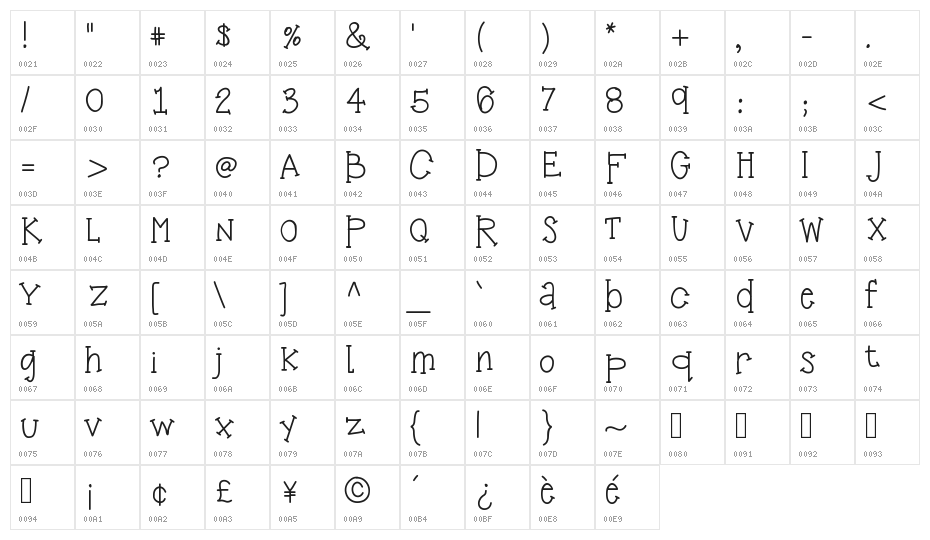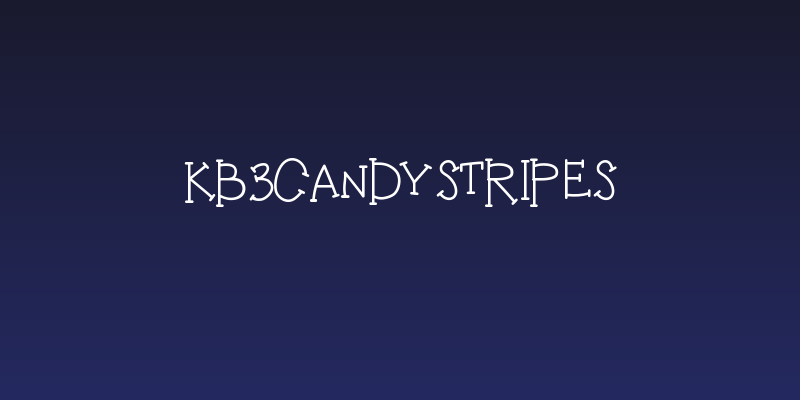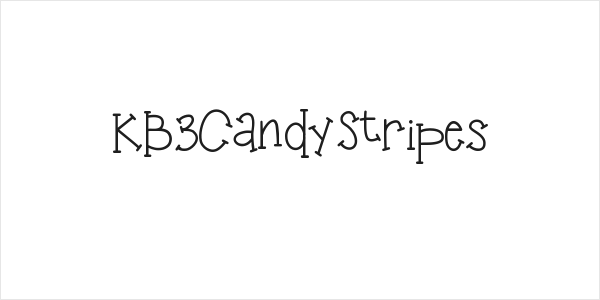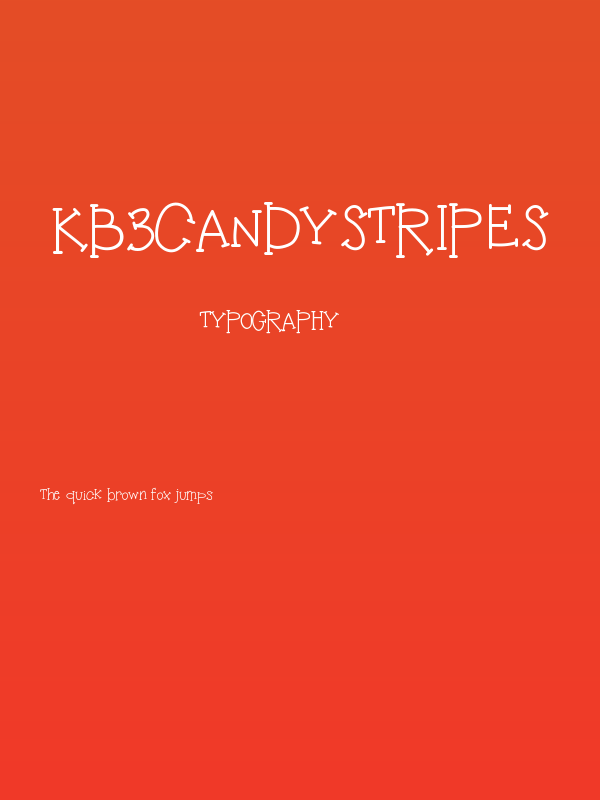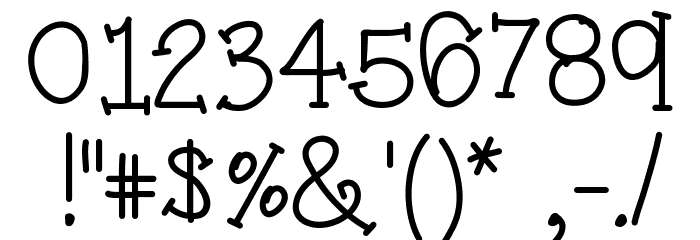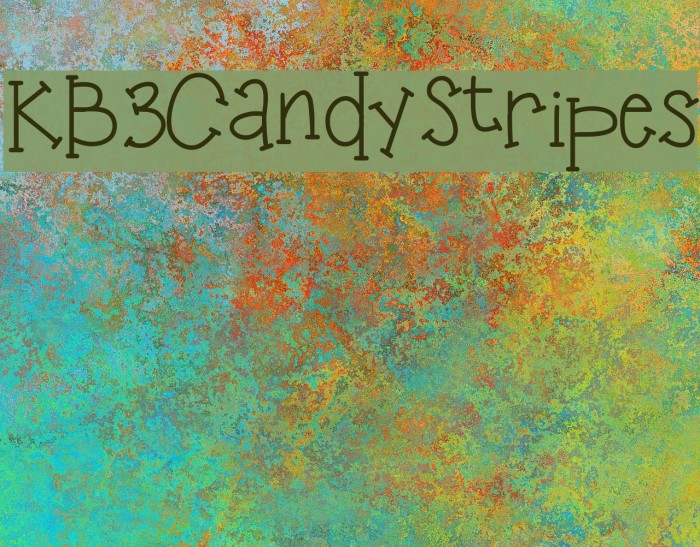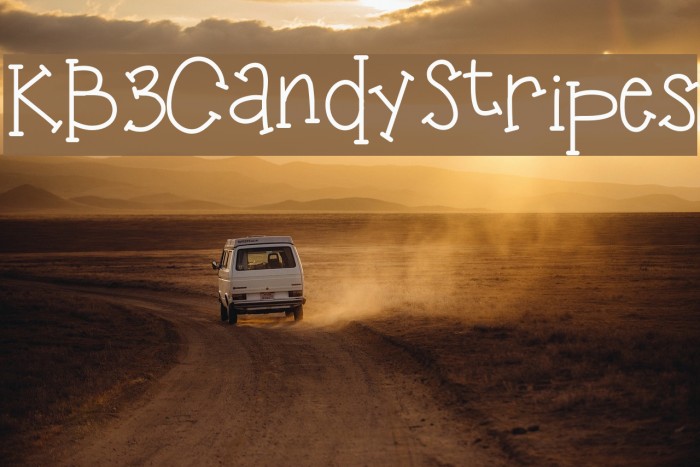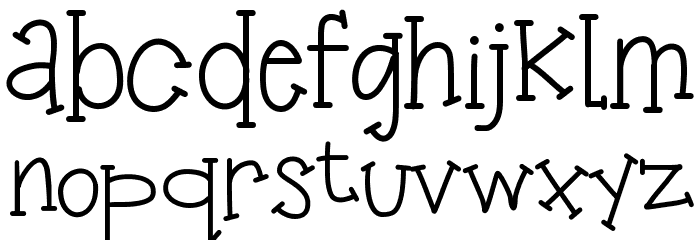
KB3CandyStripes Font
KB3CandyStripes Description
This playful and whimsical font features a unique blend of rounded and angular elements, creating a lively and energetic appearance. The characters are slightly irregular, adding a hand-drawn feel that enhances its charm. The uppercase letters are bold and prominent, while the lowercase letters maintain a consistent style with a touch of quirkiness. Numbers and special characters follow the same playful design, making this font suitable for creative and informal projects.